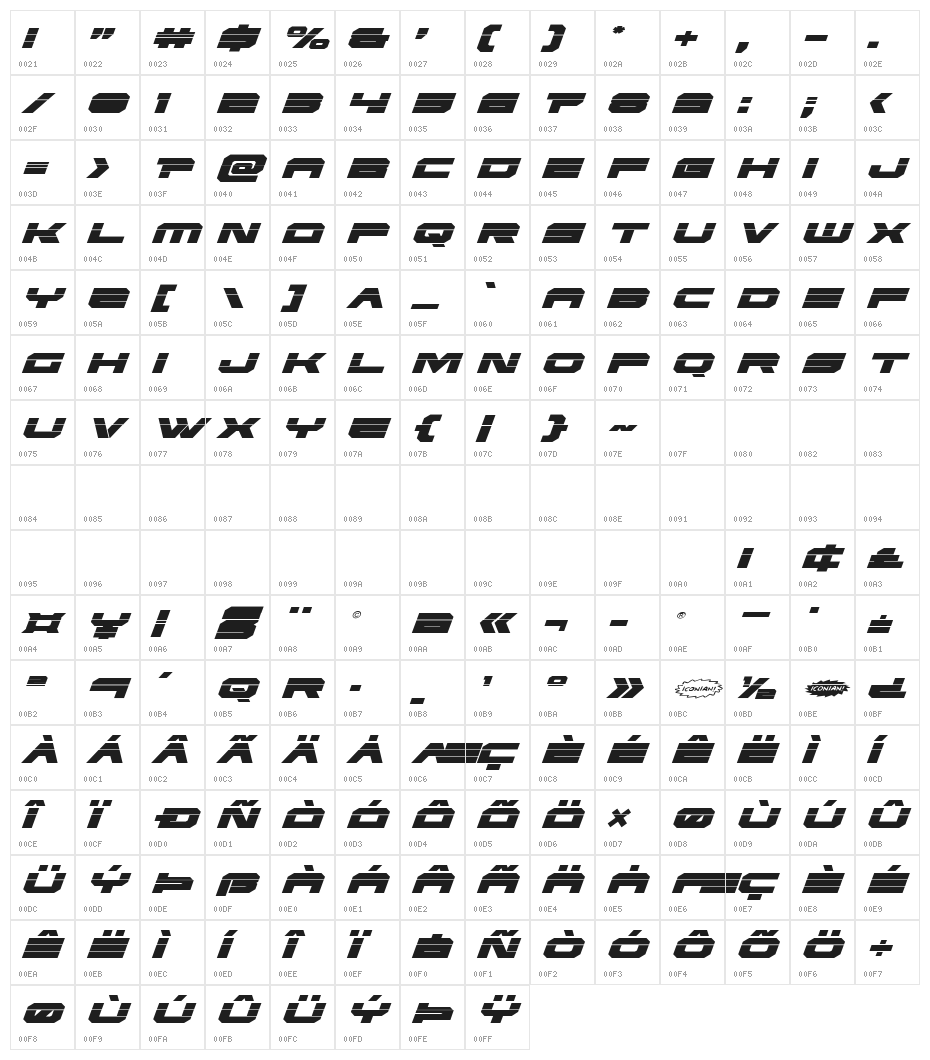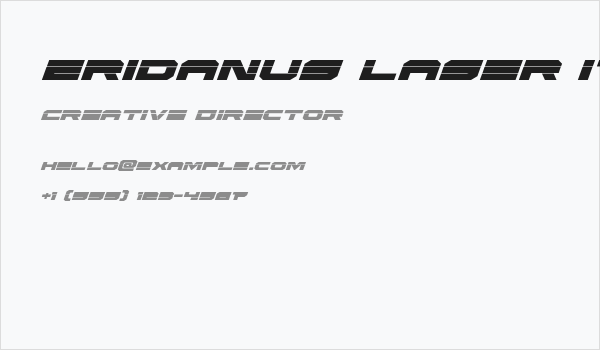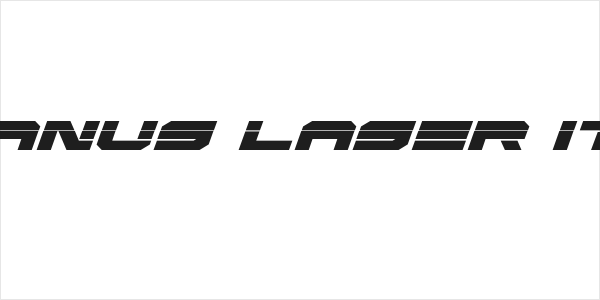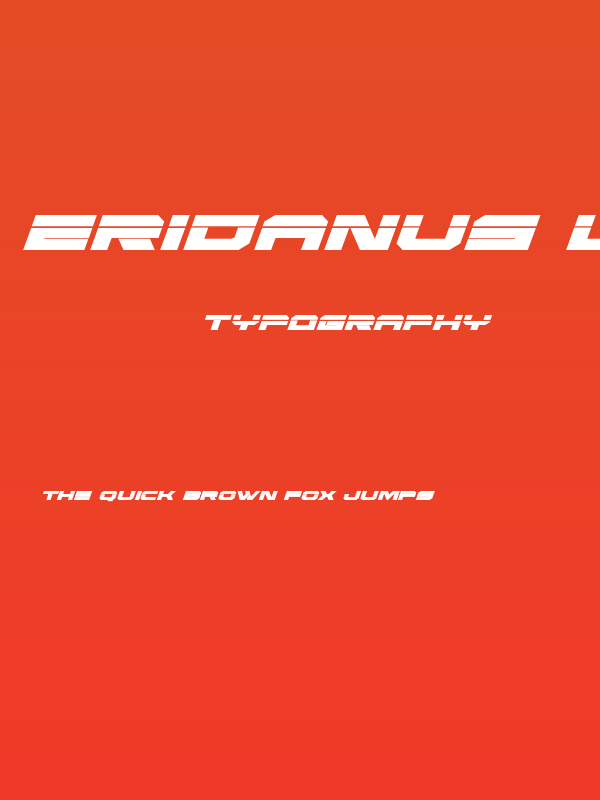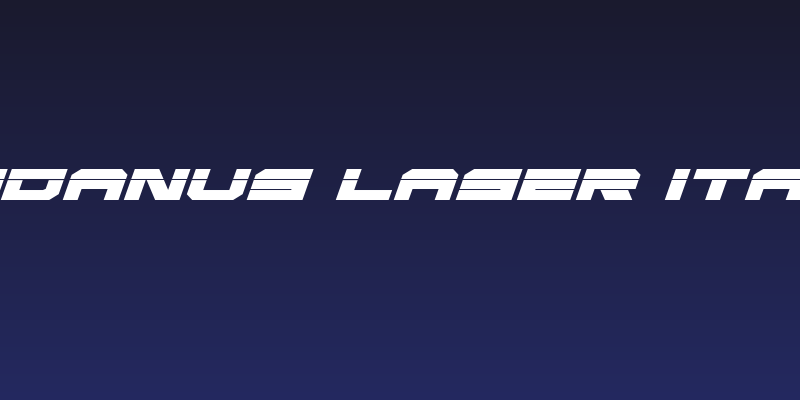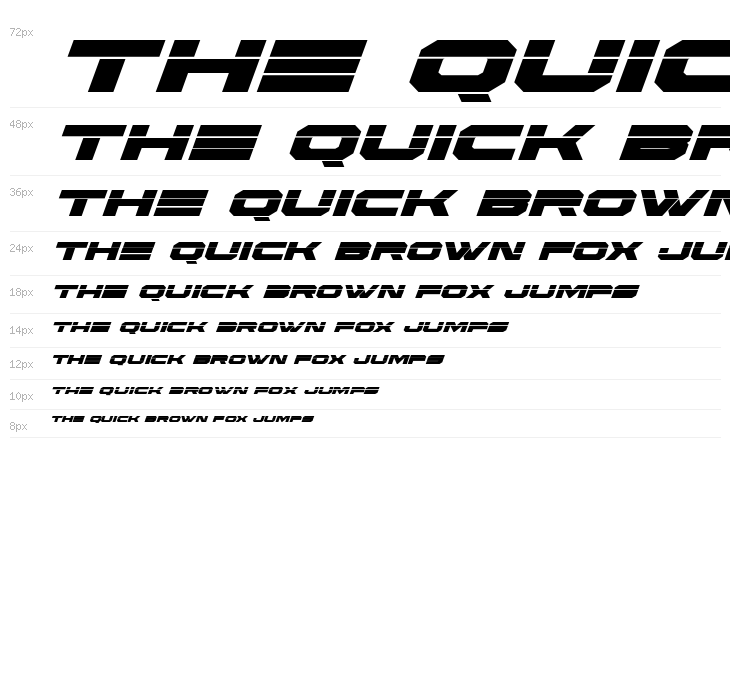
Eridanus Laser Italic Font
Eridanus Laser Italic Description
This font features a futuristic and angular design, characterized by its bold and italicized form. The letters are constructed with sharp, geometric shapes that give a sense of speed and modernity. The uppercase and lowercase letters maintain a consistent style, with a slight slant that enhances the italic effect. The numbers and special characters follow the same design principles, ensuring uniformity across all glyphs. The font's unique style makes it suitable for projects that require a modern and dynamic appearance.
| Proposed Projects | Ideal for sci-fi themed projects, technology branding, video game titles, and futuristic posters. |